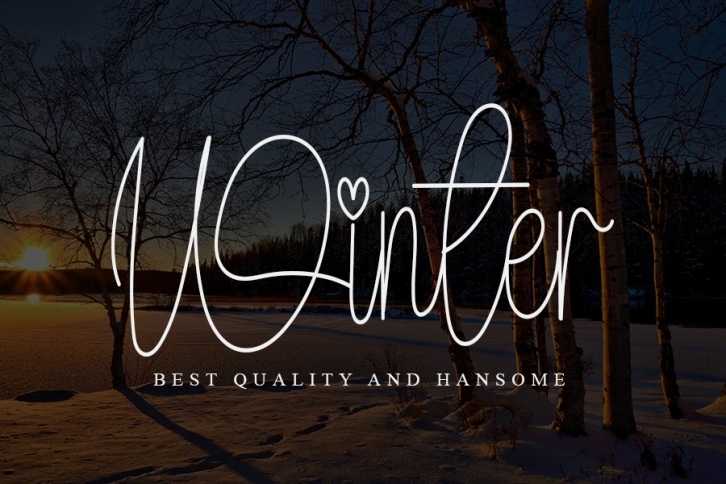
Winter is a trendy and unique font with an authentic style. It was designed by InermediaSTUDIO and it's a great choice for creative people who need such a font. It was released on August 22, 2022 and the file size is 19.49 MB. Winter will add an organic vibe to any design idea!